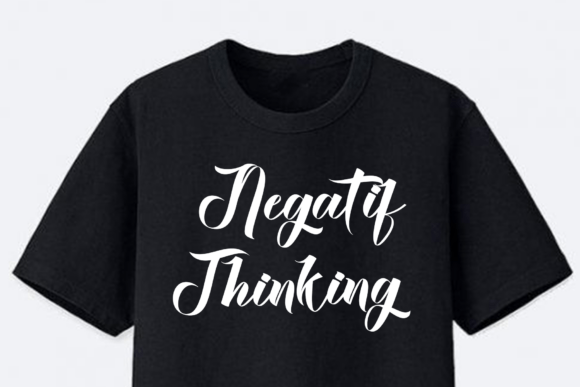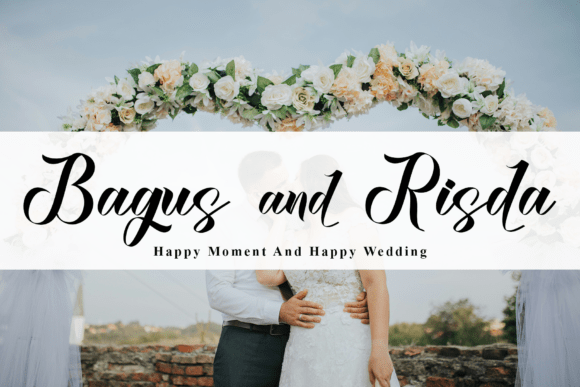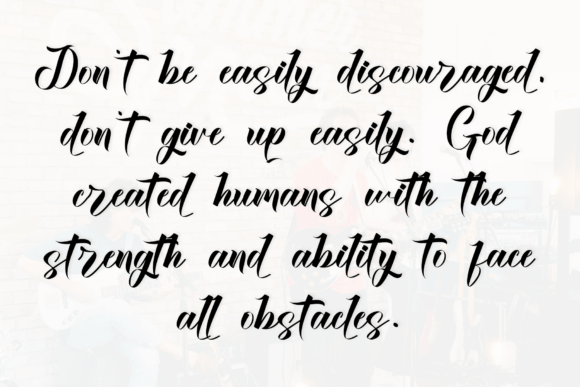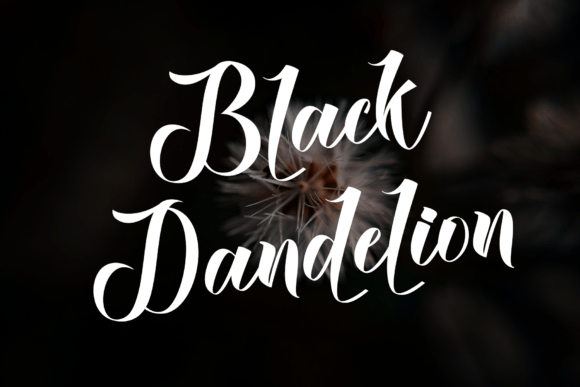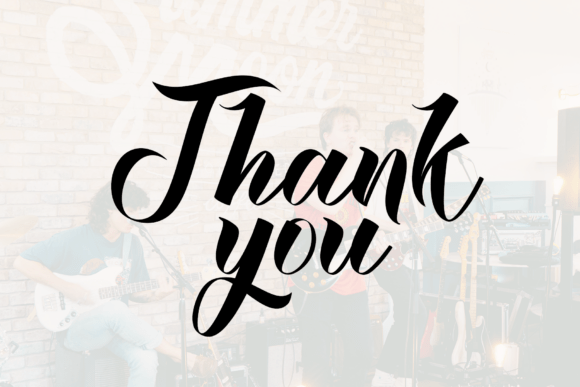
The Perfect Harmony of Style and Legibility
Have you ever stared at a blank design canvas, searching for the perfect font to bring your vision to life? It’s that moment of creative frustration, when every font seems to fall short of your expectations. But what if I told you there’s a font that can harmonize style and legibility in perfect unison? Enter Boyband Font, a modern handwritten script font that’s about to revolutionize the world of design.
This elegant font is designed to add a touch of sophistication to your designs, whether it’s a wedding invitation, a branding project, or a packaging design. Its refined swashes and smooth curves create a flowing rhythm that’s both feminine and luxurious. The balanced contrast between thick and thin strokes ensures that your message is conveyed clearly, while the Boyband Font’s unique aesthetic adds a layer of depth and emotion to your work.
Key Features of “Boyband Font”
- Unique Characteristics: Boyband Font features a distinctive, energetic, and youthful style, making it perfect for use in music-related projects, entertainment, and youth-oriented designs.
- Script and Glyphs: The font includes a wide range of glyphs, including Latin, Cyrillic, and Greek scripts, as well as various punctuation marks and symbols.
- Language Support: Boyband Font supports over 100 languages, making it a versatile choice for global projects and applications.
Boyband Font Review
Overall, I have mixed feelings about the “Boyband Font”. It’s a unique and attention-grabbing font that could work well in specific contexts.
- ✨ Unique and bold aesthetic: The font’s distinctive design makes it stand out and grabs attention, perfect for use in titles, headings, or promotional materials.
- ✨ Versatility: Despite its boldness, the font can be used in various styles, from modern to retro, depending on the context and design direction.
- ⚠️ Readability issues: The font’s bold design can make it difficult to read, especially at smaller font sizes or in complex texts. This might limit its use in body text or other areas where readability is crucial.
- ⚠️ Limited legibility: Some characters, like the ‘g’ and ‘q’, can be challenging to distinguish, which might affect the overall legibility of the font.
Overall, I think the “Boyband Font” is a great choice for designers looking for a bold and attention-grabbing font. However, its limitations should be carefully considered, especially when it comes to readability and legibility. With proper use and context, this font can be a great addition to a design project.
The Boyband Font is perfect for creating eye-catching titles, headings, and captions for various projects, including music festivals, concerts, and music-related events. It’s also great for creating fun and playful graphics, such as social media posts, memes, and GIFs.